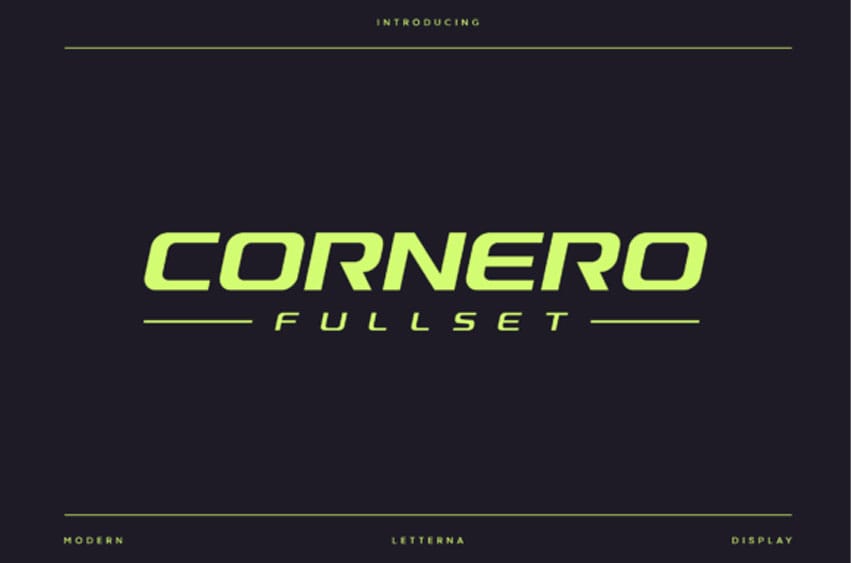
Cornero Fullset Font Accelerate your brand’s visual identity with Cornero, a powerhouse modern display typeface meticulously. This font features a heavy, wide geometric construction with an aggressive forward slant that radiates high-velocity energy and unyielding professional power.
Its monolithic silhouette is characterized by precision-cut chamfered corners and streamlined apertures, making it an extraordinary choice for automotive branding, competitive sports logos, high-tech engineering headers, and futuristic gaming interfaces.
Cornero delivers a sense of polished “aerodynamic” beauty and legendary industrial strength to your designs, ensuring your headlines command the fast lane with a signature and cutting-edge presence.